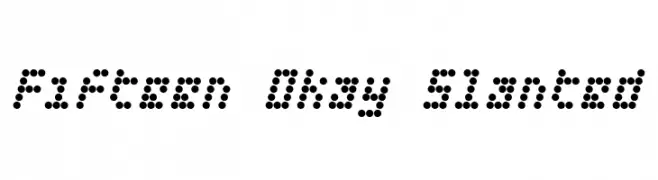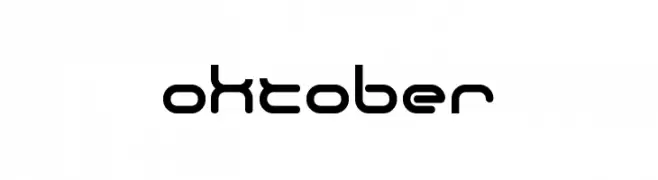
A sleek, futuristic font with geometric lines and a modern aesthetic.
A futuristic, geometric font with sharp, angular lines and a technical aesthetic.
A bold, angular font with geometric shapes and a futuristic aesthetic.
A slanted dot matrix font with a modern, digital aesthetic.
A playful, spooky font with a stitched, hand-drawn aesthetic.
A bold, cinematic font with a vintage film reel aesthetic.